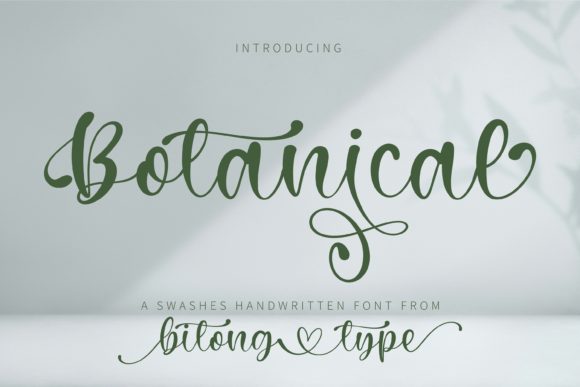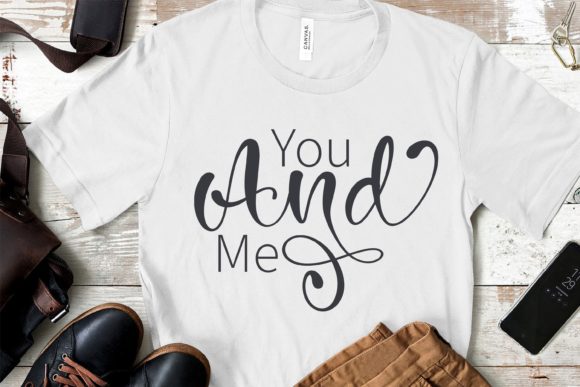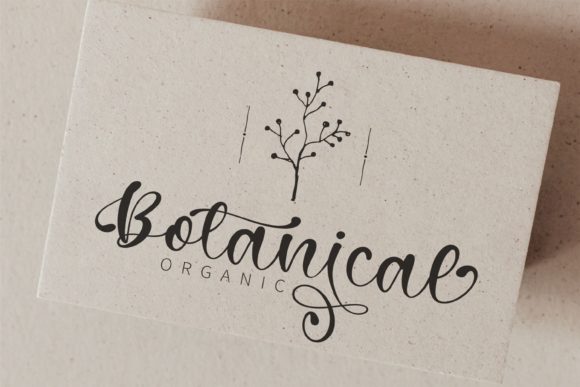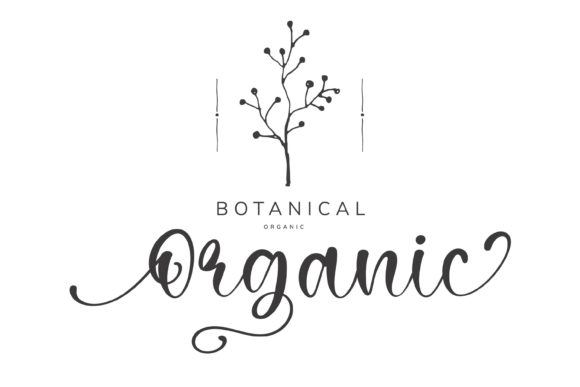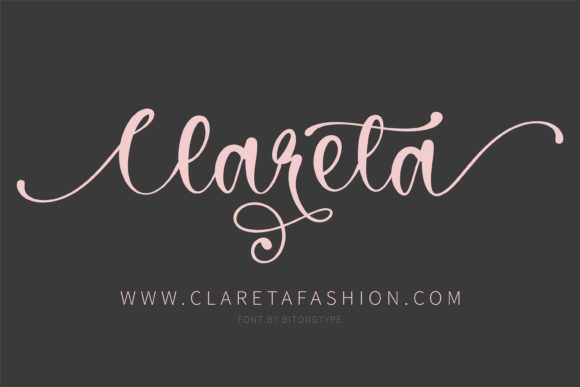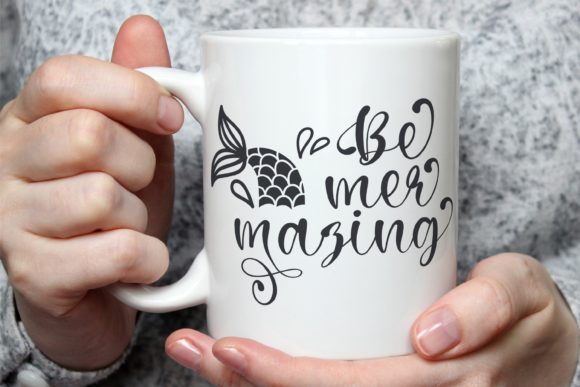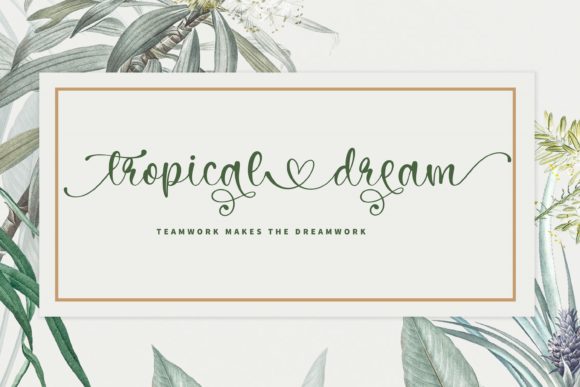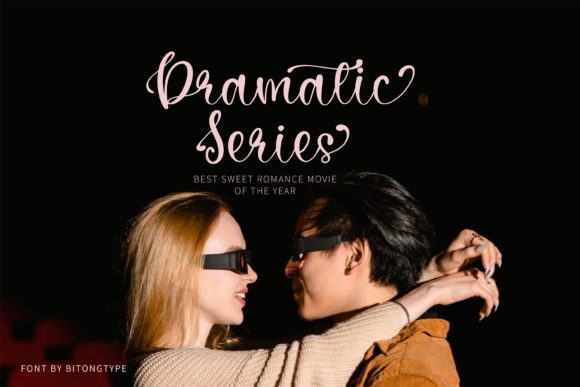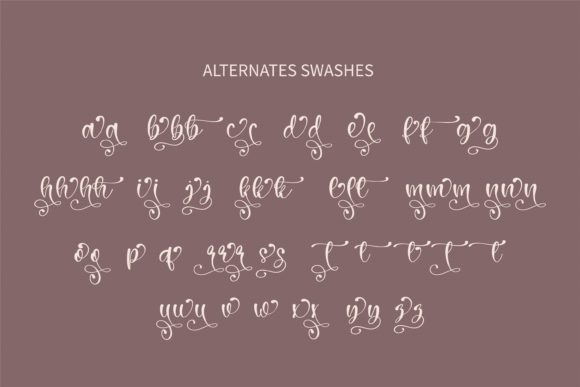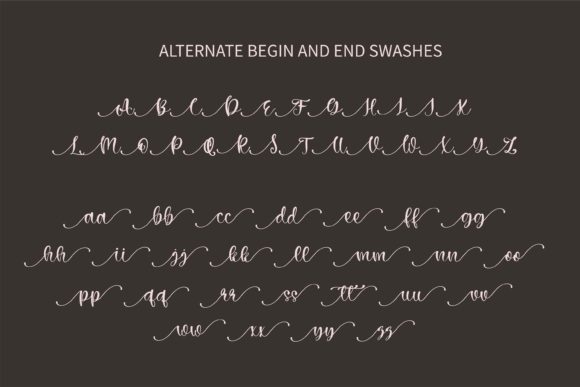
Botanical Font
Introducing Botanical, a font that embodies the essence of delicate beauty and timeless elegance. With its flowing handwritten style, Botanical brings a sense of grace and sophistication to every curve and loop of its characters. This font is meticulously crafted to ensure that each letter exudes a harmonious balance and exquisite charm.
Botanical’s versatility is a key feature that sets it apart. Its well-balanced characters make it a perfect match for a diverse range of design projects. Whether you’re creating branding materials, invitations, packaging, or any other creative endeavor, Botanical has the ability to seamlessly blend into various themes and contexts, enhancing the overall aesthetic of your work.
The flowing strokes of Botanical evoke a sense of fluidity and movement, giving your designs a dynamic and engaging quality. The font’s delicate nature adds a touch of refinement, allowing you to communicate your message with elegance and grace. Its timeless appeal ensures that Botanical remains relevant across different design trends and styles.
One of Botanical’s standout features is its extensive set of glyphs and swashes, all easily accessible thanks to its PUA (Private Use Area) encoding. This means that you can effortlessly incorporate decorative elements and embellishments into your designs, adding a personalized and unique touch that captures attention and adds depth to your work.
Whether you’re a seasoned designer or someone exploring the world of typography for the first time, Botanical offers a canvas for creativity. With each stroke of this font, you have the opportunity to express your artistic vision and create designs that resonate on a visual and emotional level.
Botanical is more than just a font—it’s a tool that empowers you to infuse your projects with elegance, sophistication, and a touch of whimsy. Let the delicate charm of Botanical elevate your designs and bring a sense of enchantment to everything you create.